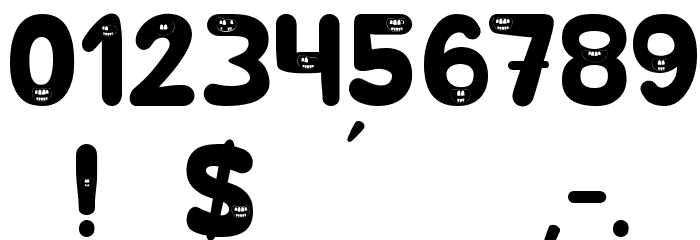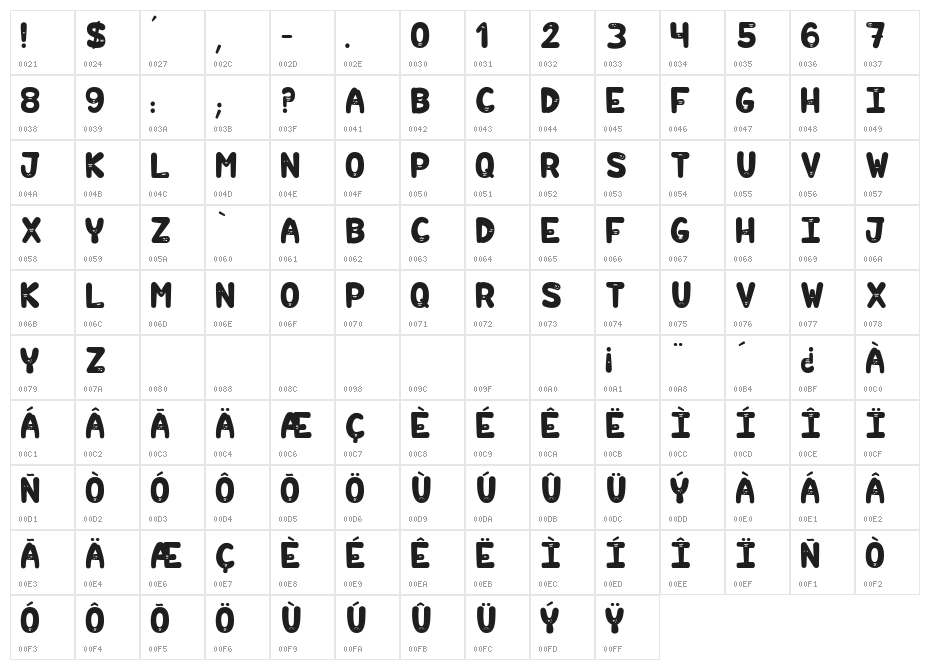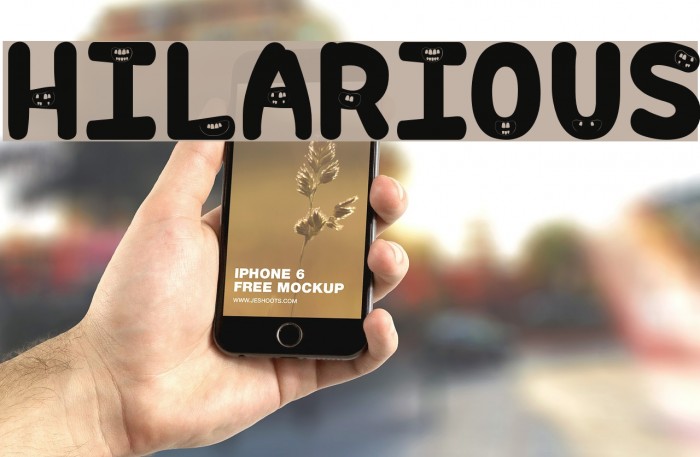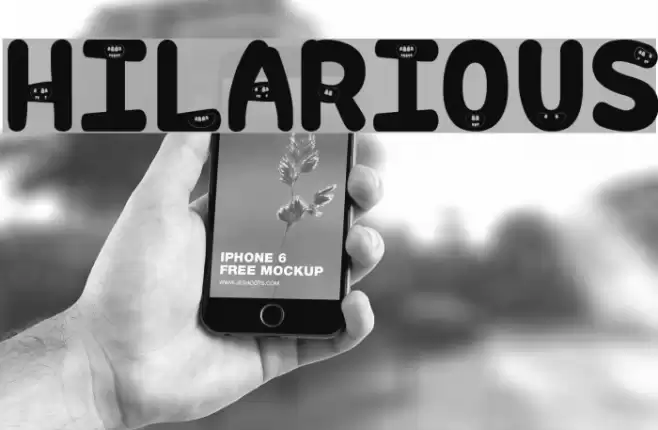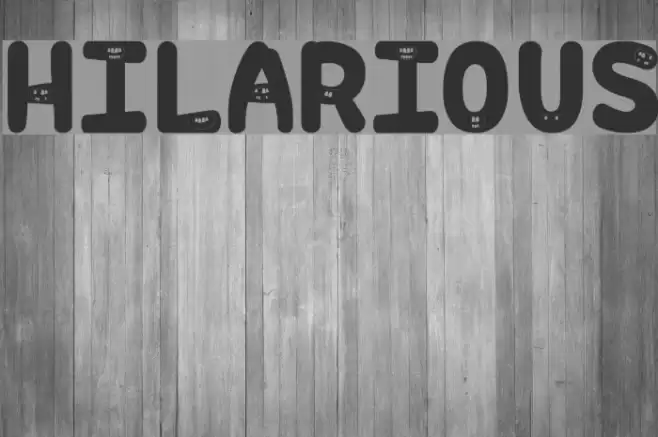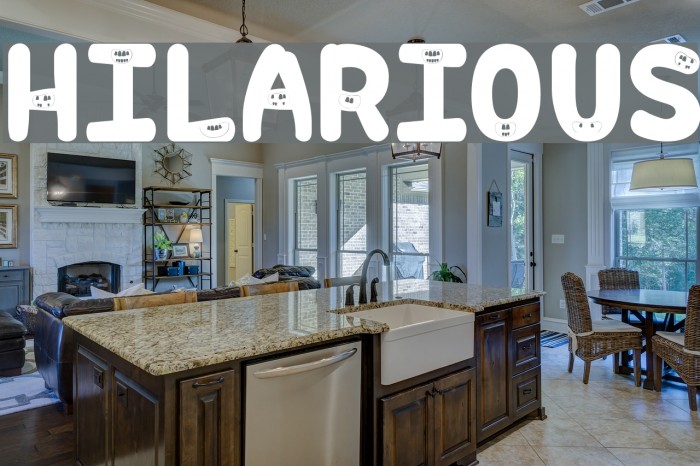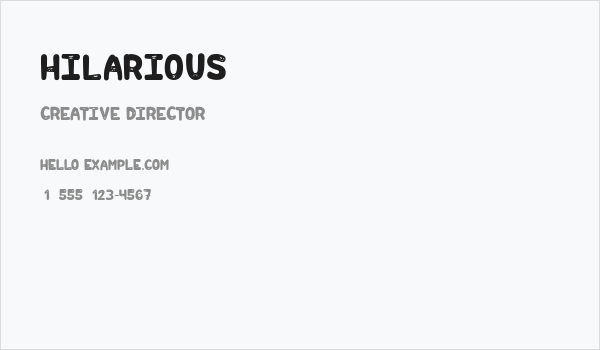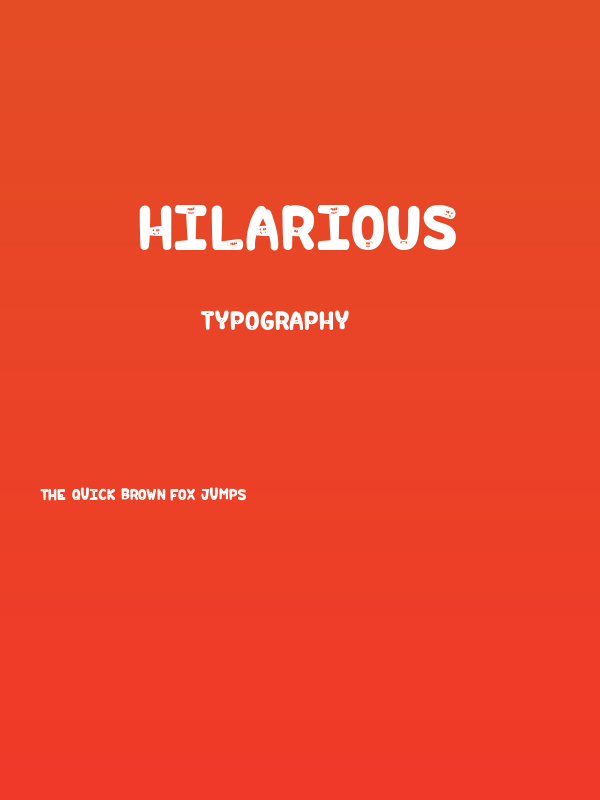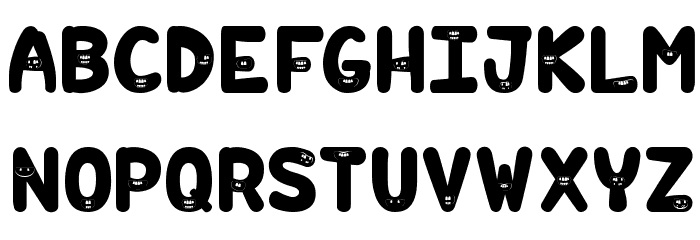
Hilarious Font
Hilarious Description
This playful and whimsical font features bold, rounded characters with a cartoonish style. Each letter is designed with a consistent thickness, giving it a uniform appearance. The characters have a slightly condensed width, enhancing their compact and fun look. The font includes both uppercase and lowercase letters, numbers, and a selection of special characters. Its unique style is characterized by a bubbly and cheerful aesthetic, making it ideal for projects that require a lighthearted and informal touch.
| Proposed Projects | Ideal for children's books, comic strips, playful branding, and party invitations. |